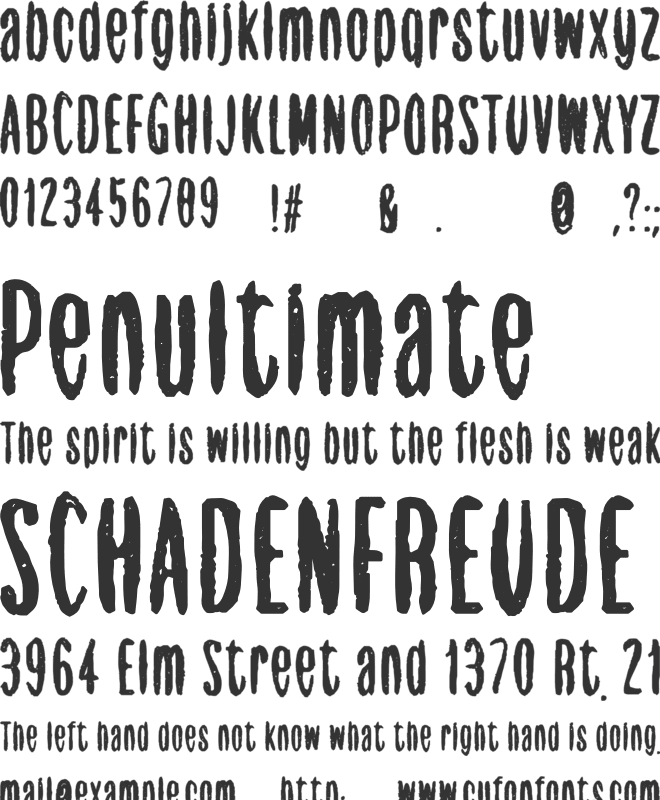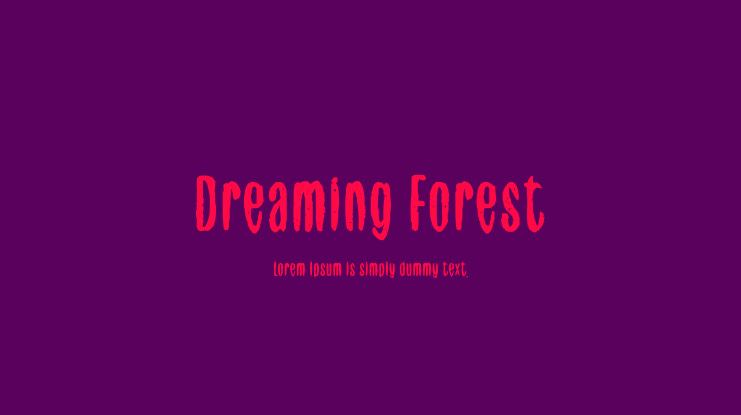
Dreaming Forest Font
Dreaming Forest is a unique font that's inspired by all forests and their awesomeness. It is simple, but at the same time, complex and has unique handmade characteristics. It is a hand drawn artistic font. It is perfect for packaging, typographic pieces, inspirational quotes, and I find it perfect with images of the forest. Buy Forest Dreams today and bring a taste of the forest into your project!